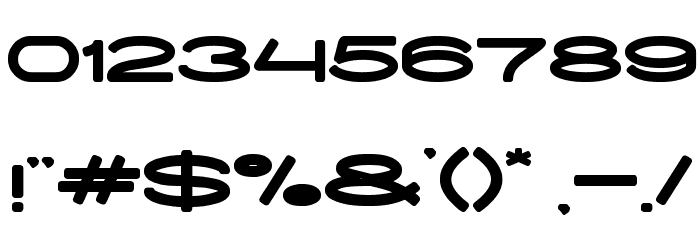
EXTRA LARGE Font
This font features a sleek, futuristic design with elongated and slightly curved letterforms. The uppercase letters are particularly striking, with a geometric and streamlined appearance that suggests speed and modernity. The lowercase letters maintain a consistent style, offering a harmonious blend with the uppercase. The numerals are bold and clear, ensuring readability while maintaining the overall aesthetic. Special characters are designed with the same attention to detail, providing a cohesive look across all glyphs. This font's unique style makes it ideal for projects that require a modern and cutting-edge appearance.
A sleek, futuristic font with elongated, geometric letterforms.
- Proposed Projects: Ideal for technology branding, sci-fi themed projects, and modern advertising.
- Width: Expanded